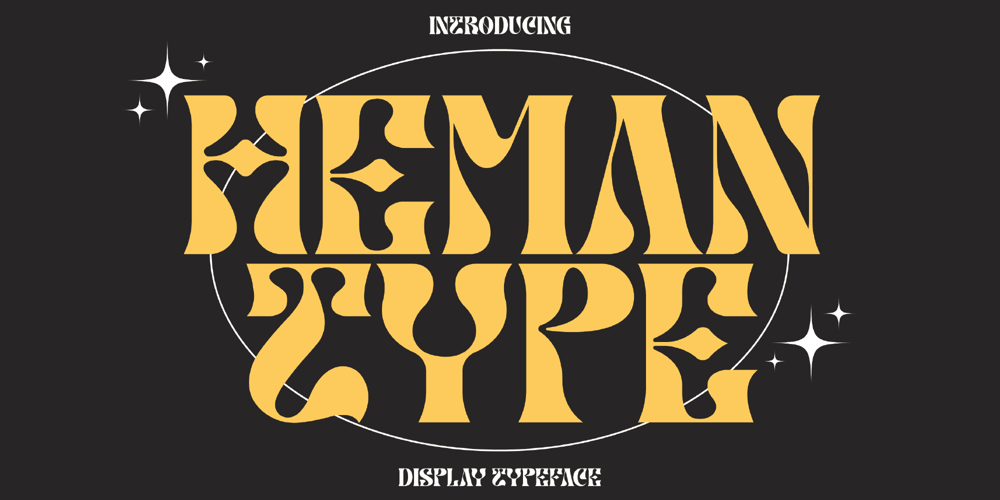
Heman Font Family was designed by Heru Utama Putra and published by Letterena Studios. Heman contains 2 styles and family package options. Heman is a bold and stylish serif font.This typeface is perfect for an elegant & luxury logo, book or movie title design, fashion brand, magazine, clothes, lettering, quotes, and so much more.**Uppercase